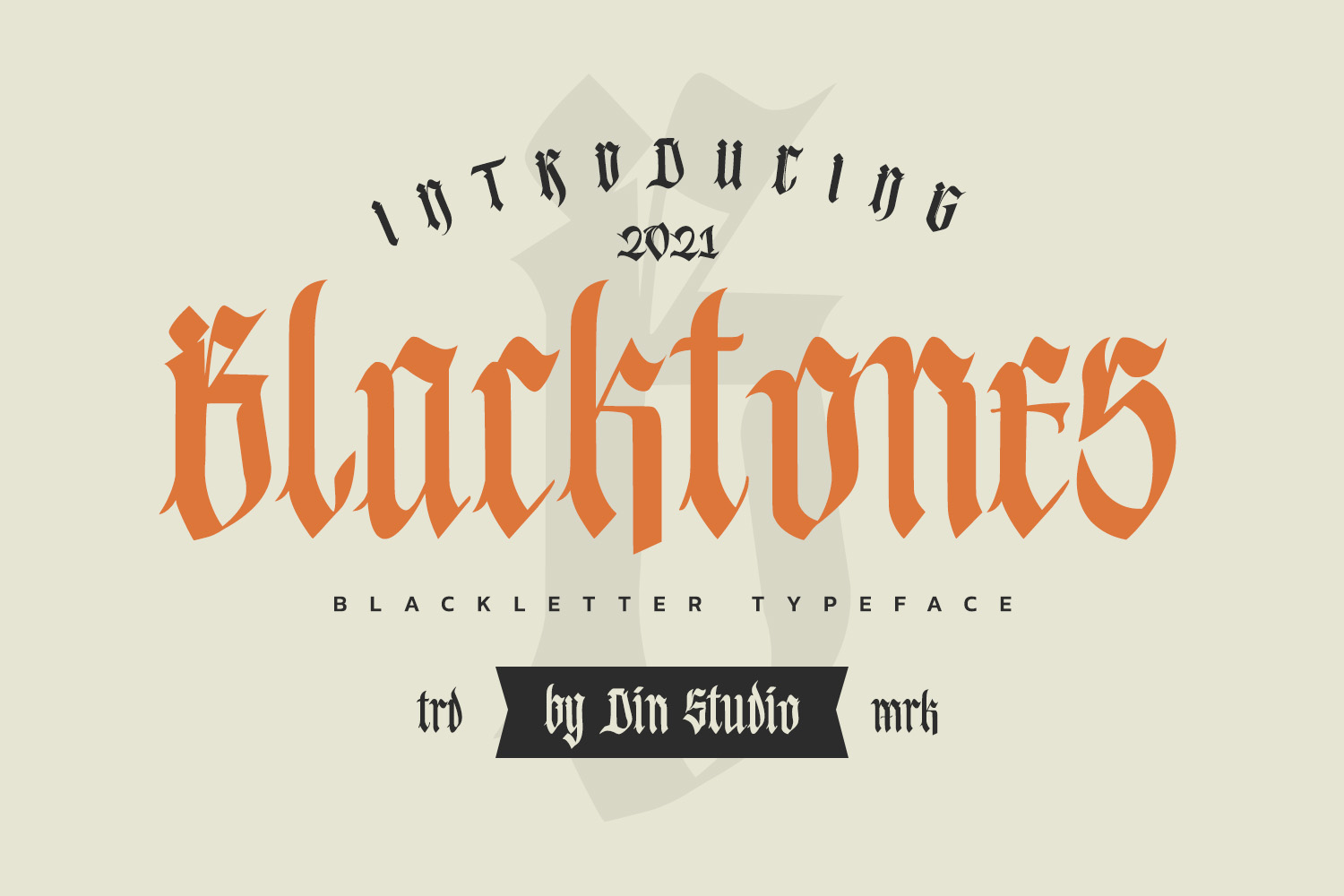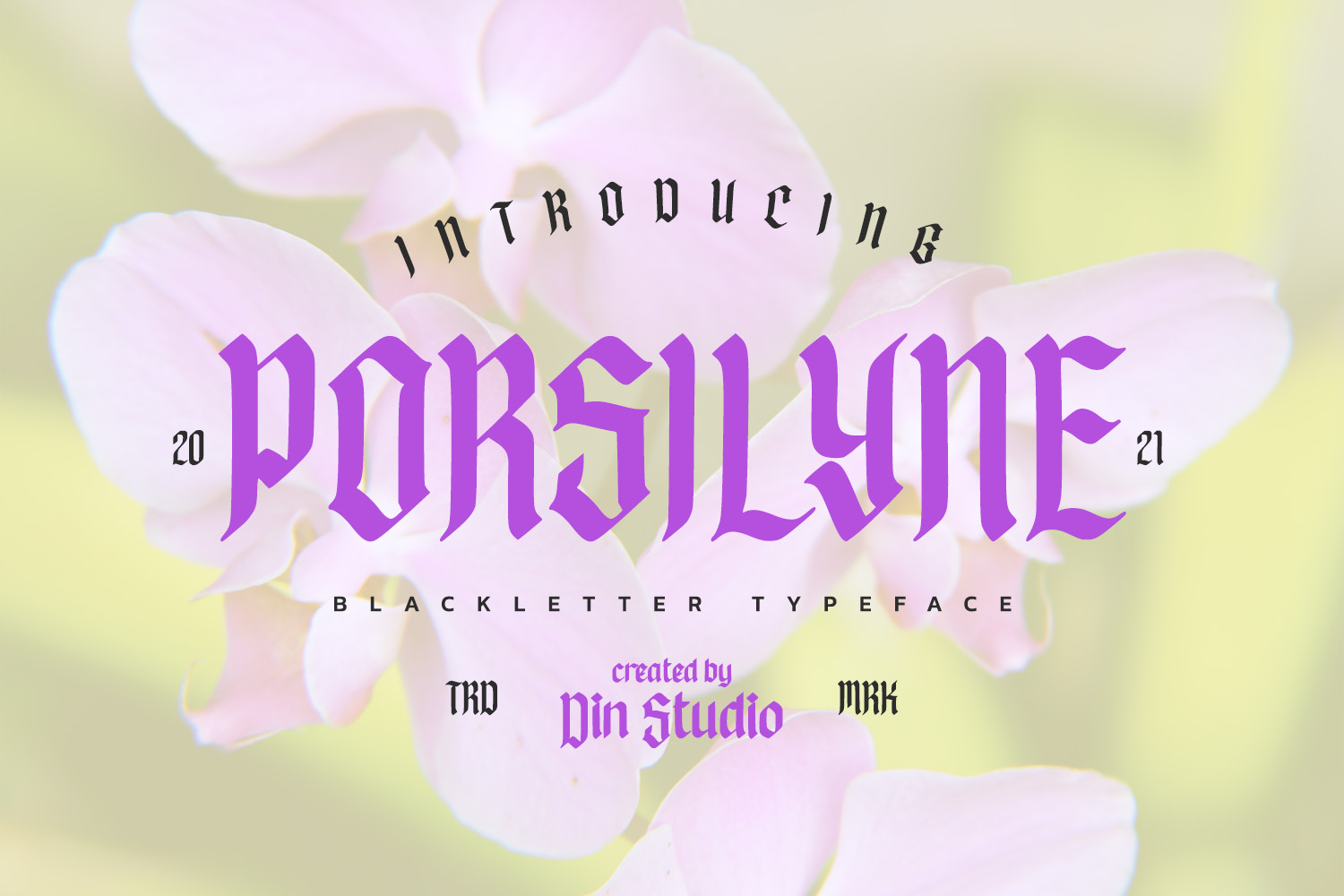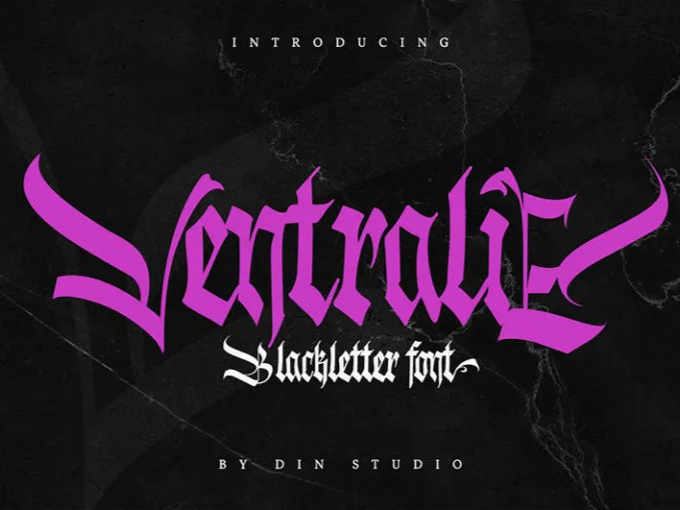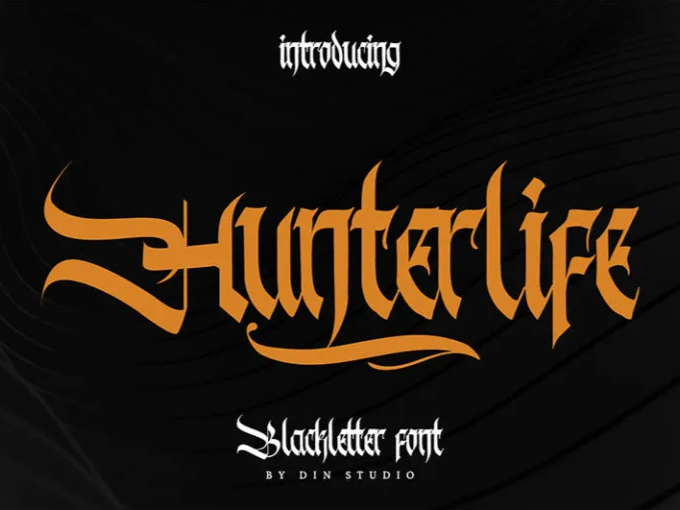
Streetwear fashion evolves into a free expression area influenced by diverse cultures. It emerged from American street culture in the late 1970s and 1980s and was initially associated with youth communities. Street subcultures had a strong influence on its growth, providing a blend of comfort, urban lifestyle, and bold visual statement.
This advancement created the path for the introduction of different cultural influences, which increased the uniqueness of streetwear. One notable example is the gothic streetwear look. The rise of gothic streetwear not only created a mysterious and bold impression, but it also increased the means of expression for people who desired to stand out among urban fashion trends.
This influence increased the diversity of streetwear while also allowing for personal expression through dark colors and individual symbolism. Gothic streetwear, with its dark aesthetic of symbols and illustrations, will require fonts that match it well. Therefore, this article will explore ten different types of fonts that you should consider for your gothic streetwear design. Each of these fonts has a look that enhances the identity, emphasizes the aesthetics, and adds a personal touch to a design.
The proper fonts will not only serve as a typography element but also as a tool for delivering a cohesive visual message with a gothic streetwear mood. Using these fonts allows designers to create more expressive and original artwork, highlighting the specific feature of gothic streetwear.
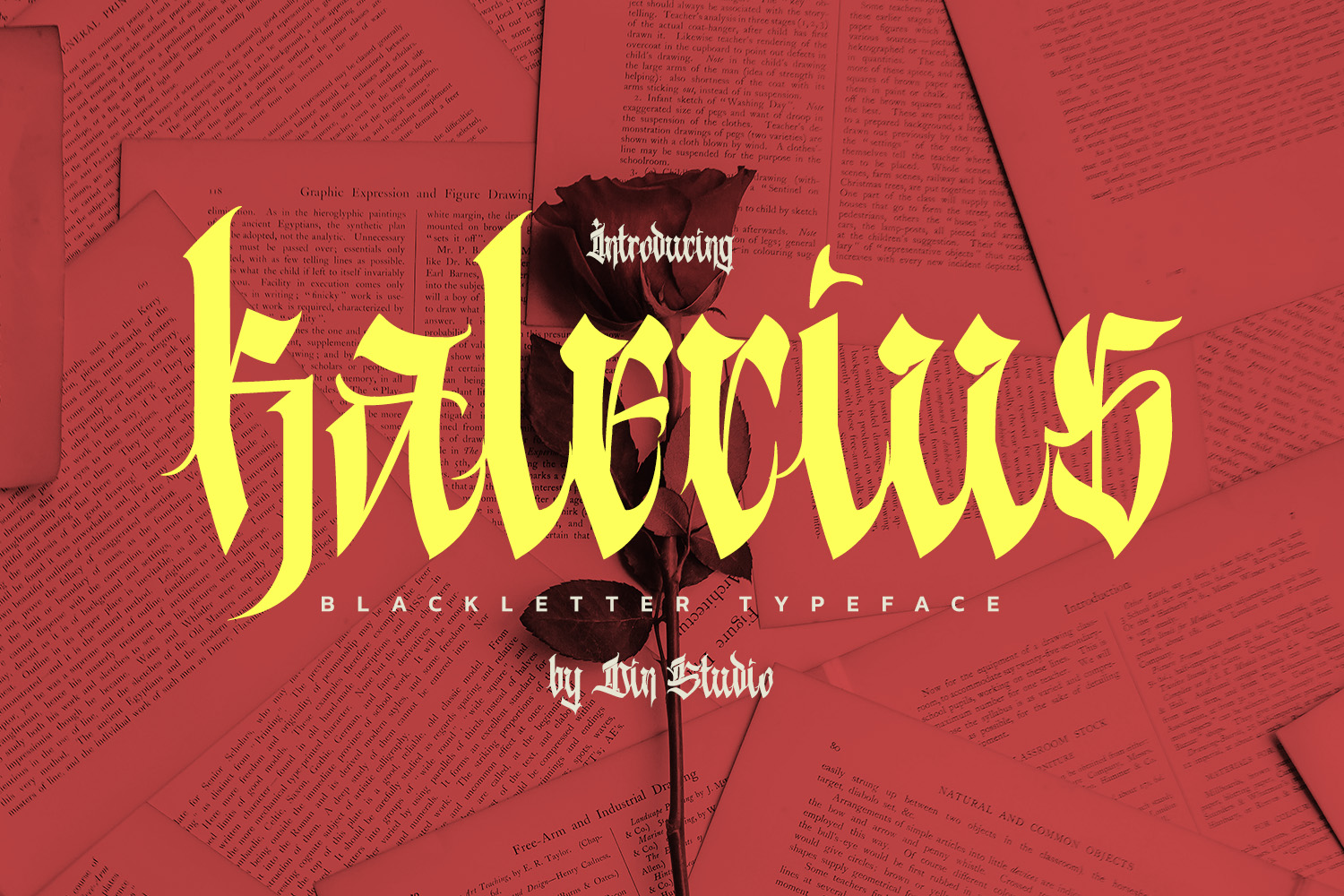
Kalecius is first on our list. It’s a blackletter display font with a strong, decorative appearance inspired by the Schwabacher style. This typeface combines modern typography with a traditional touch via its stroke characteristics. Kalecius has a strong visual character, as evidenced by the bold lines, decorative letterforms, and artistic nuances associated with Gothic type.
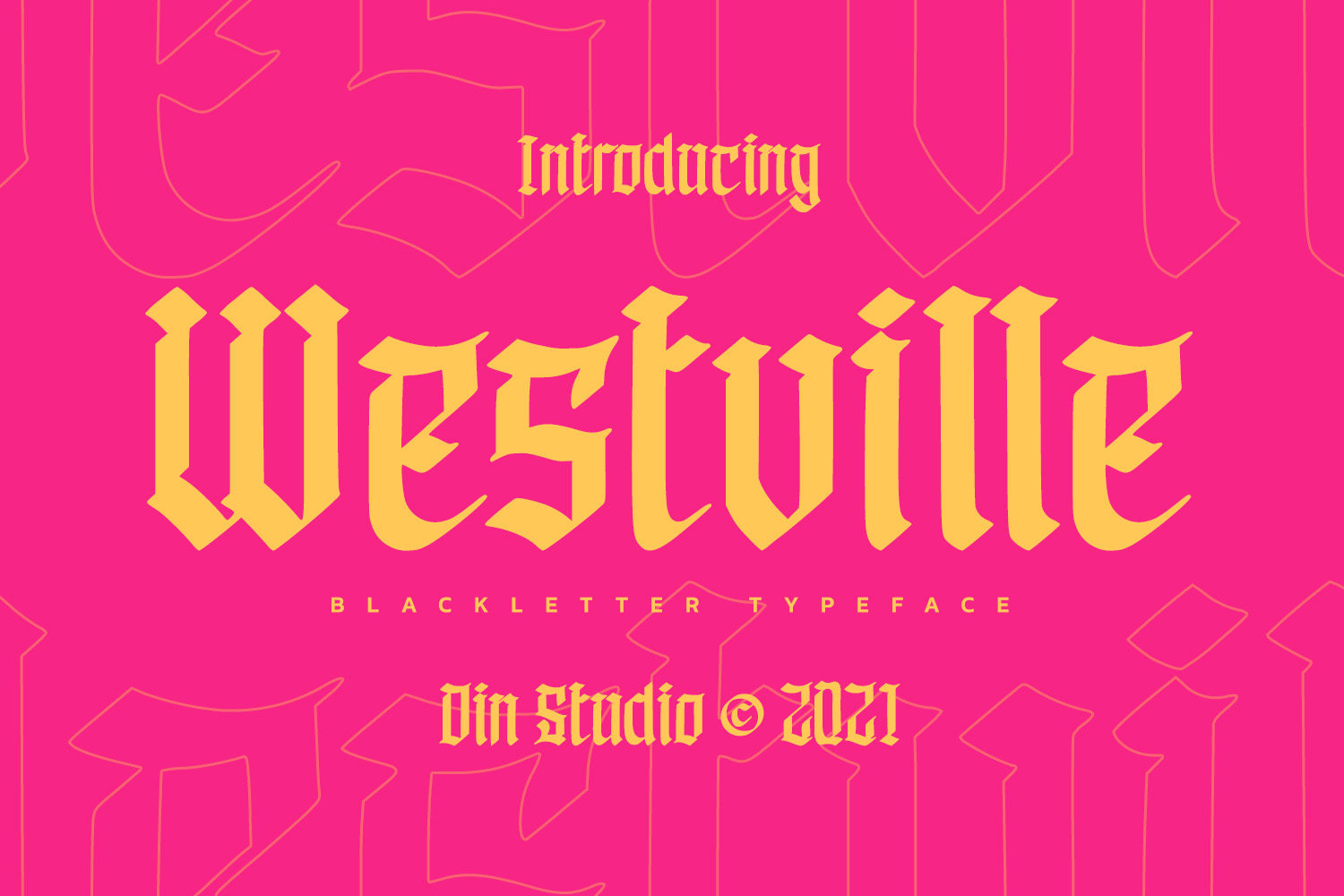
Next is Westville. This font is a blackletter display font that presents a strong visual character through bold lines and artistic curves. Its distinctive letterforms convey a modern, bold, and clean character compared to typical blackletter fonts. Its uniqueness comes from blending classic blackletter aesthetics with a modern touch, which helps it stay relevant for various contemporary design needs.
In the context of gothic streetwear t-shirt designs, Westville can serve as the main typographic element. This font gives a dark, bold, and expressive impression, while also showcasing a minimalist yet characterful style, making it suitable for use as the main focus of a modern gothic streetwear design. Its application helps build a consistent visual identity while also giving a distinctive appeal to gothic streetwear t-shirt designs.
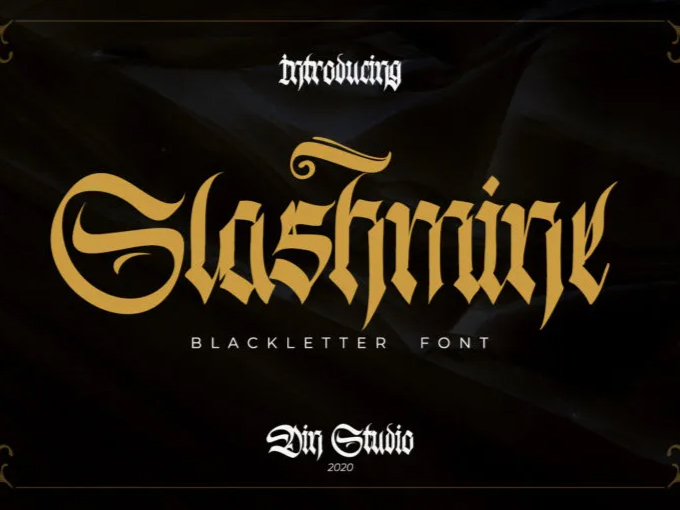
Now we will introduce you to a blackletter display font that has an energetic and expressive feel, Slashmine. It is a font with bold, dynamic swashes, giving a modern feel that reflects the fraktur style. The sharp, bold, and aggressive letterforms create an authentic texture with every brushstroke. The character showcases a bold and artistic nuance that makes Slashmine synonymous with a free urban style closely associated with street culture.
In its application, Slashmine serves to reinforce the mysterious and characterful image of gothic streetwear while adding a distinctive visual appeal. Moreover, this font gives off a dark, bold, and energetic impression. It is suitable for use in t-shirt designs to prominently display brand names or as a main typographic element.
Next is Ravenside. It is a blackletter display font that highlights a classic yet modern vibe, combining fraktur and rotunda style. This font is designed with such assertive details in each of the strokes, making it look elegant and modern at the same time. Ravenside has high contrast in its boldness and unique uppercase style that you can rarely find in other blackletter styles.
In its application to gothic streetwear t-shirt designs, Ravenside serves as the primary typographic element, reinforcing a mysterious, bold, and expressive image. As a result, this font is suitable for displaying brand names, slogans, or headlines in large sizes to make the visual identity stand out. With the right application, Ravenside is able to create a dark yet elegant impression that aligns with the gothic streetwear esthetic.
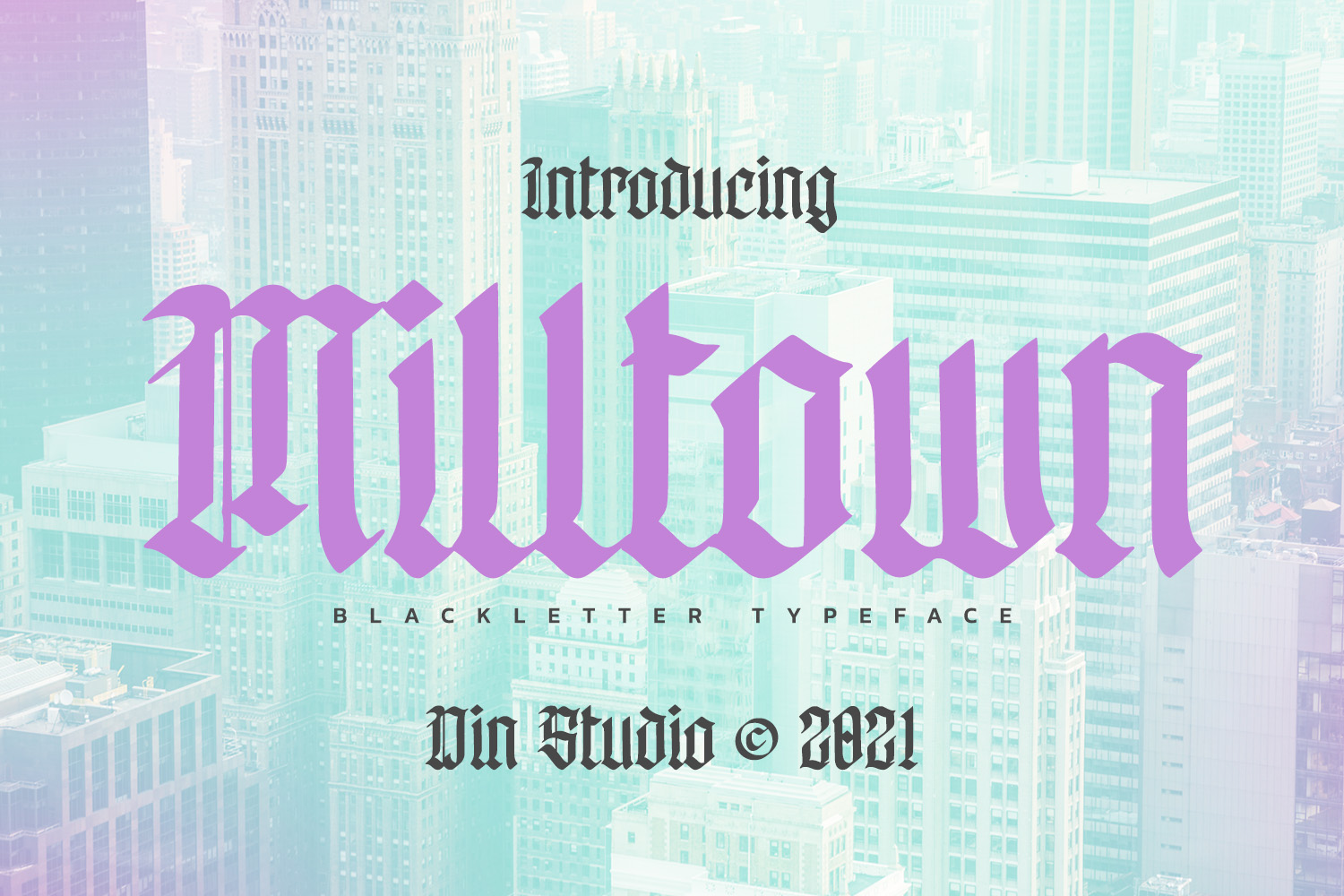
Milltown is the perfect font for your gothic streetwear collection. This blackletter display font boasts a robust presence, skillfully merging the fraktur style with timeless textura elements. Milltown showcases an exquisite harmony of striking lines and dynamic curves, complemented by typographic decorations like thin vertical lines in the textura style.
When applied in gothic design, Milltown functions as the main typographic element to write a large-sized brand’s name, slogan, or headlines effectively. The visual power of Milltown makes it look dominant and easily memorable and leaves a strong impression on the audience. This font resonates well with the character of gothic streetwear, which emphasizes a daring and mysterious personality.
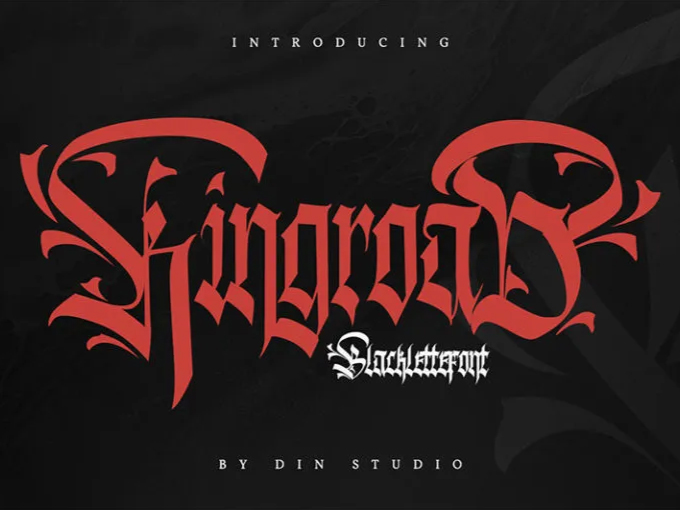
By understanding their characters and functions, you will have the freedom to experiment while also creating unique works. Gothic streetwear isn’t just a trend; it’s an expression worth trying to create meaningful fashion pieces or t-shirt designs.